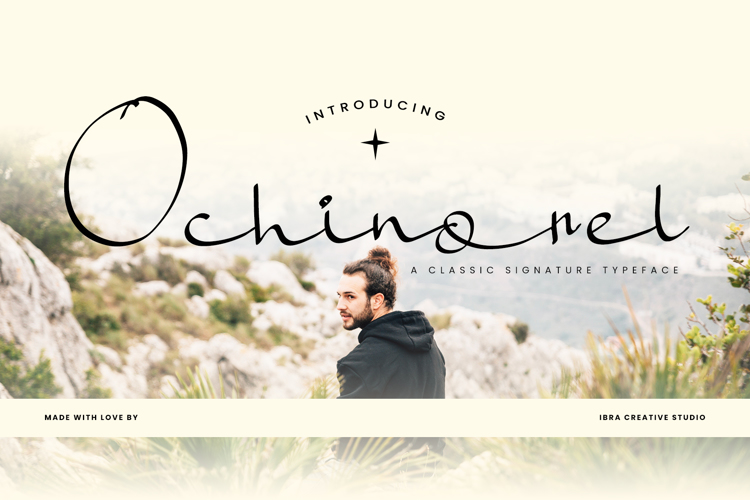
Ochinorel Font
Ochinorel, a classic signature typeface, exudes timeless elegance and sophistication, making it a distinctive choice for various design applications. Its gracefully crafted letterforms boast fluidity and a sense of hand-crafted authenticity, reminiscent of a bespoke signature.